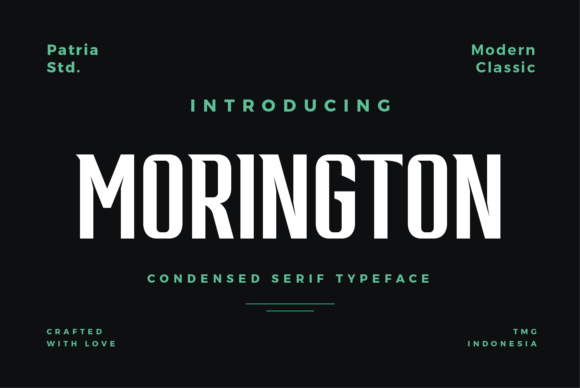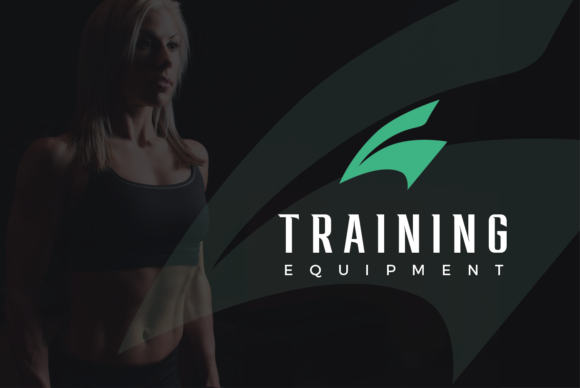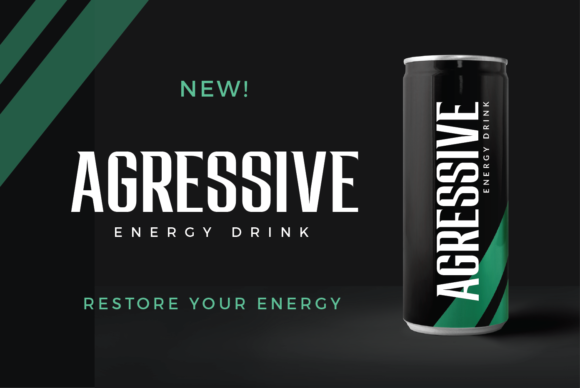
Morington Font
Morington is a distinct, elegant display that blends traditional influences into a contemporary aesthetic. Whether it’s for web, print, moving images or anything else – Morington will look spectacular.